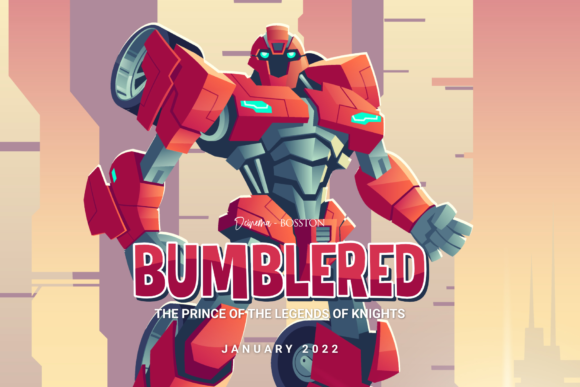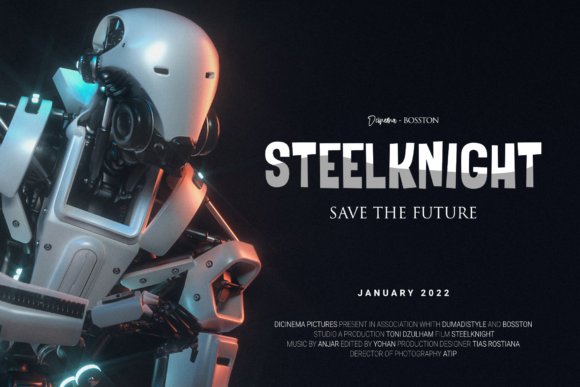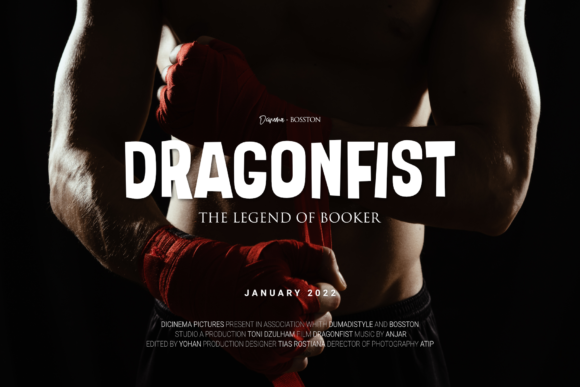
Introduction to Freaky Freedom Font
Do you remember that moment when a spark of creativity strikes, and you’re compelled to bring your idea to life? For many designers, this spark is what drives them to create something truly unique and captivating. Whether it’s a cartoon, a children’s game, or a book cover, a well-designed font can make all the difference.
That’s where the Freaky Freedom Font comes in – a high-quality, bold, and thick lettered display font that’s perfect for adding a touch of joy to your creative project. With its transparent background and free download option, this design resource is a valuable asset for any designer looking to elevate their work. In this article, we’ll delve into the world of Freaky Freedom Font and explore its many uses and benefits.
Key Features of Freaky Freedom Font
- High-quality design resource ideal for creative projects and personal use
- Available for free download with transparent background for seamless integration
- Unique, hand-drawn style with bold lines and playful characters, perfect for adding a touch of whimsy to your design
- Perfect for use in logos, graphics, and other design elements where a distinctive, eye-catching font is required
Honest Review: Freaky Freedom Font
I recently stumbled upon the Freaky Freedom Font and I’m excited to share my thoughts on it. As a designer, I’m always on the lookout for high-quality design resources that can elevate my creative projects.
First off, the Freaky Freedom Font is a free download, which is a major plus in my book. It’s not often that you come across a font that’s both free and of high quality, so I was impressed by this find.
- Unique and quirky design that adds a touch of personality to any project
- High-quality rendering, even at larger font sizes
- Transparent background, making it easy to layer over other design elements
- Not as versatile as some other fonts, may not be suitable for all design styles
- Some characters may not render correctly in certain situations (e.g. when using font sizes below 12pt)
Overall, I’m impressed by the Freaky Freedom Font. It’s a great addition to any designer’s toolkit, especially for creative projects that require a bit of whimsy. While it may not be perfect, it’s definitely worth a try if you’re looking for a unique and quirky font.
How to Use Freaky Freedom Font
The Freaky Freedom Font is a unique and versatile design resource ideal for creative projects. To get the most out of this high-quality font, follow these steps:
For the best results, use the Freaky Freedom Font in conjunction with other design elements, such as graphics and textures. You can also experiment with different font sizes, colors, and combinations to achieve unique effects.
The Freaky Freedom Font is suitable for a wide range of creative projects, including:
- Advertising and marketing materials
- Graphic design and visual arts
Alternatives to Freaky Freedom Font
Great Vibes is a beautiful, high-quality script font perfect for creative projects that require a touch of elegance. It features a transparent background and is ideal for designs that need a romantic or vintage feel.
When to use: Wedding invitations, wedding decorations, and other romantic designs. Great Vibes is a great alternative to Freaky Freedom Font for projects that require a softer, more feminine touch.
Comparison: While Great Vibes has a similar feel to Freaky Freedom Font, it is more elegant and refined, making it suitable for more formal designs.
Alex Brush is a high-quality script font that is perfect for designers looking for a unique and creative font. It features a transparent background and is ideal for designs that require a touch of sophistication.
When to use: Business cards, letterheads, and other corporate designs. Alex Brush is a great alternative to Freaky Freedom Font for projects that require a professional and elegant touch.
Q: What is the resolution and transparency of the Freaky Freedom Font?
The Freaky Freedom Font has a high-resolution design, making it suitable for use in high-quality prints and digital displays. The font also features a transparent background, allowing you to easily place it over any image or background without worrying about unwanted colors or textures. This makes it perfect for creative projects that require a clean and minimalist design.